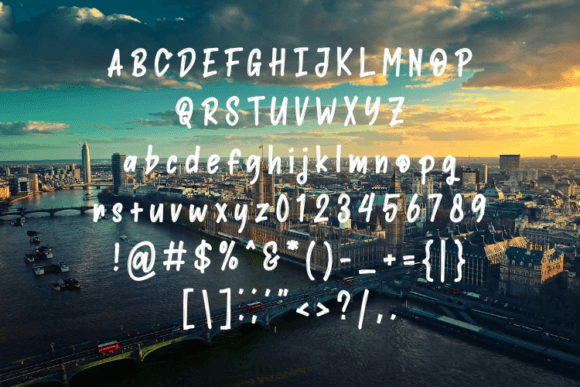
Introducing Logins Font: The Perfect Blend of Human Touch and Artistic Flair
In the world of digital design, fonts play a crucial role in conveying the tone and personality of a brand or artwork. With the rise of digital platforms, the need for unique and creative typography has become more pressing than ever. This is where Logins Font comes in – a delicately crafted brush type font that adds a personal and intimate touch to your design. In this article, we’ll explore the features and benefits of Logins Font, and how it can elevate your design to new heights.
The Story Behind Logins Font
Logins Font is a handcrafted brush type font that is designed to bring a human touch to digital artwork. Its creator, [designer name], aimed to craft a font that would not only be aesthetically pleasing but also convey a sense of personality and emotion. The result is a font that is both unique and artistic, with a distinctive handwritten technique that sets it apart from other fonts.
The inspiration behind Logins Font lies in the beauty of handwritten typography. The designer wanted to capture the essence of traditional brush writing and translate it into a digital format. The result is a font that has a distinctly human feel, with subtle imperfections and variations that give it a personal touch.
Key Features of Logins Font
So, what makes Logins Font so special? Here are some of its key features:
- Handwritten technique: Logins Font boasts a unique handwritten technique that gives it a personal and intimate feel.
- Brush type font: The font has a distinctive brush type style, with bold and expressive strokes that add a touch of artistic flair to your design.
- Delicately crafted: Logins Font is meticulously crafted to ensure that every letter and character is perfect for use in digital artwork.
- Unique aesthetic: The font has a one-of-a-kind aesthetic that sets it apart from other fonts, making it perfect for designers looking to add a touch of personality to their work.
The Benefits of Using Logins Font
So, why should you choose Logins Font for your design needs? Here are some benefits of using this amazing font:
- Adds a human touch: Logins Font brings a human touch to digital artwork, making it perfect for designers looking to add personality and emotion to their work.
- Enhances creativity: The font’s unique aesthetic and handwritten technique inspire creativity and artistic expression, making it perfect for designers looking to push the boundaries of digital design.
- Versatile: Logins Font is versatile and can be used in a variety of design applications, from branding and advertising to packaging and digital media.
- Easily readable: Despite its artistic nature, Logins Font is easily readable, making it perfect for use in body text and other applications where legibility is key.
In conclusion, Logins Font is a game-changer for designers looking to add a personal and intimate touch to their digital artwork. Its unique handwritten technique, delicate craftsmanship, and artistic aesthetic make it the perfect font for designers looking to elevate their work. Whether you’re looking to create a brand identity, design a website, or craft a piece of digital art, Logins Font is the perfect choice. So why wait? Download Logins Font today and start adding a human touch to your digital designs!